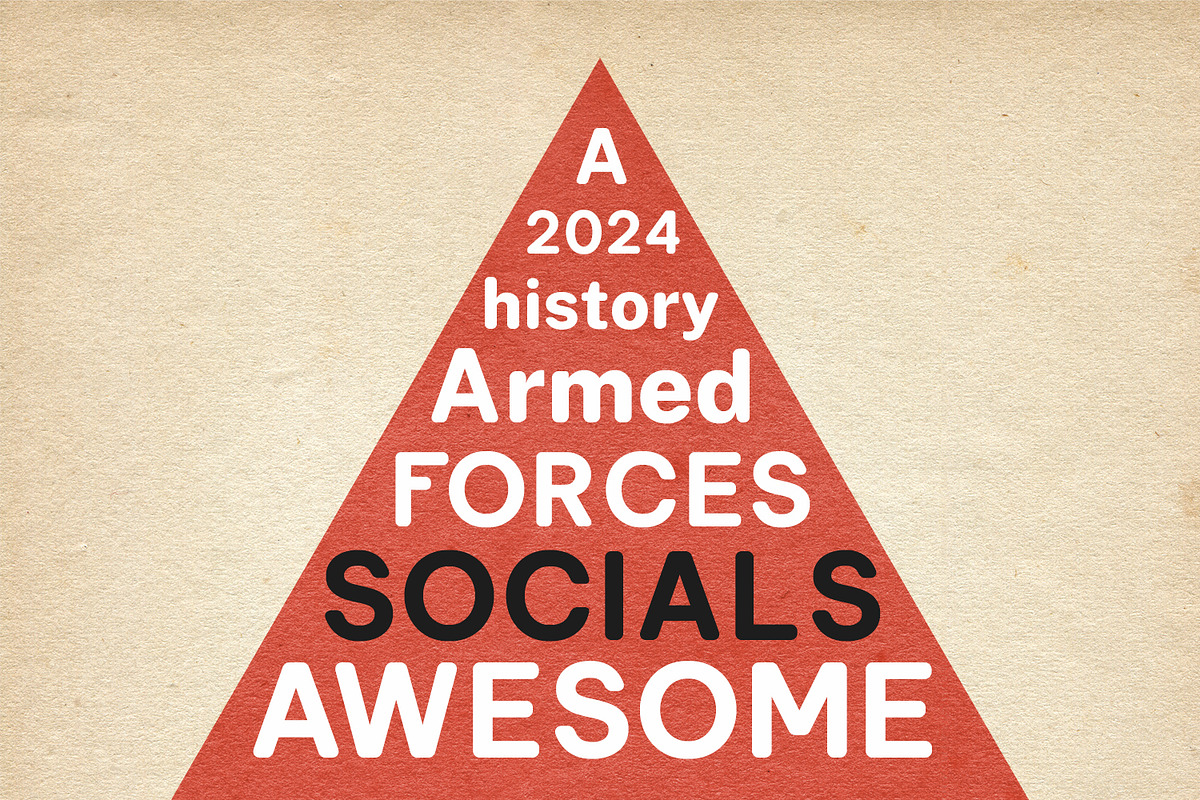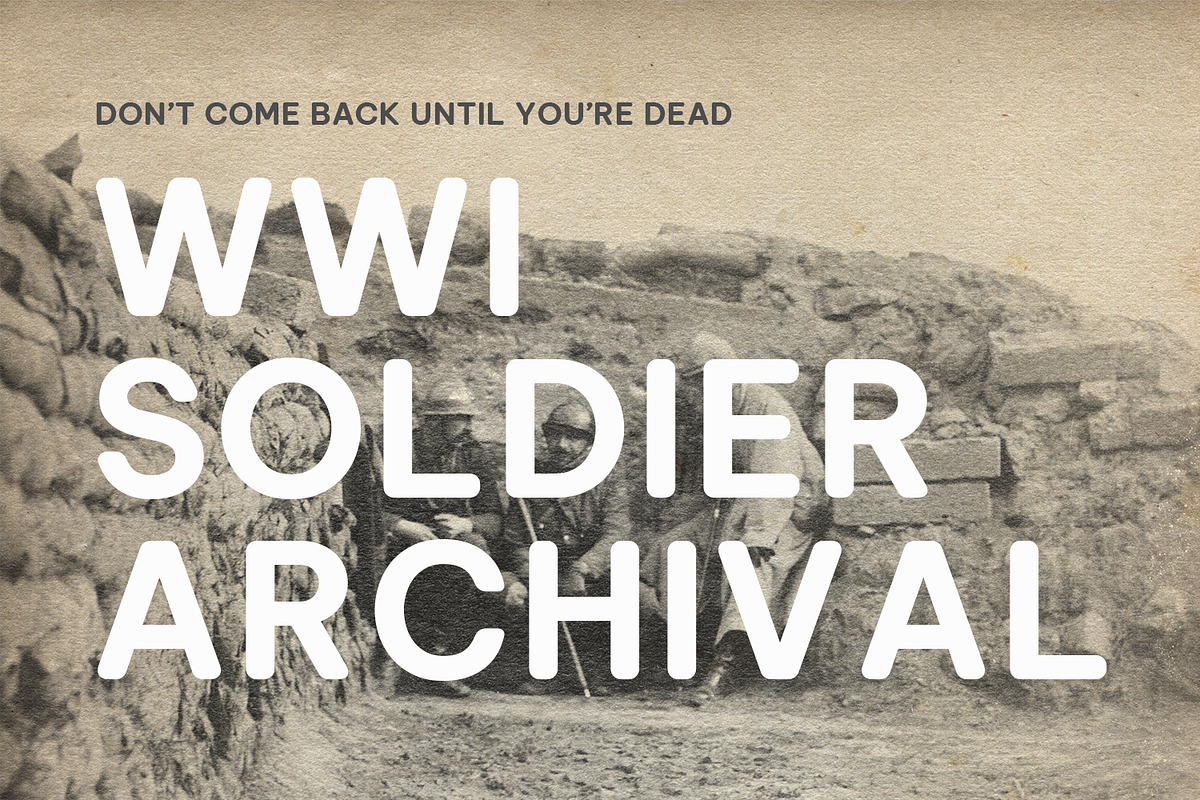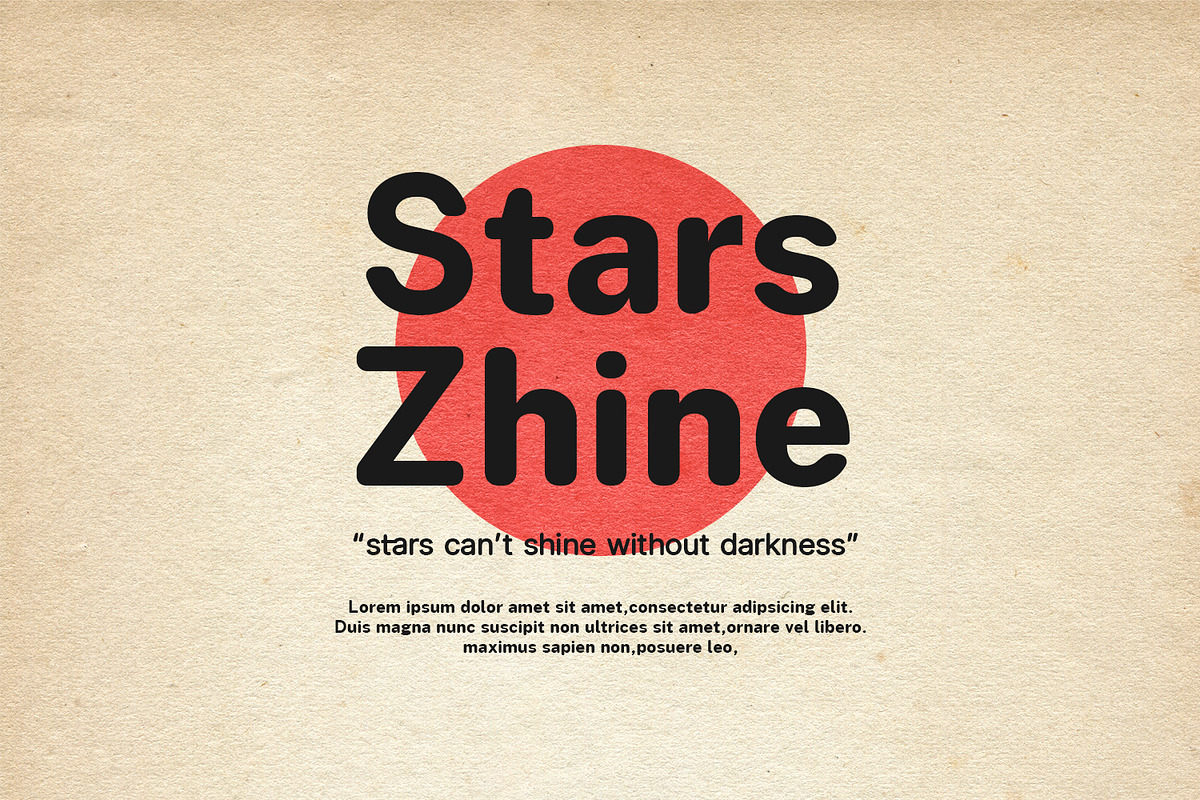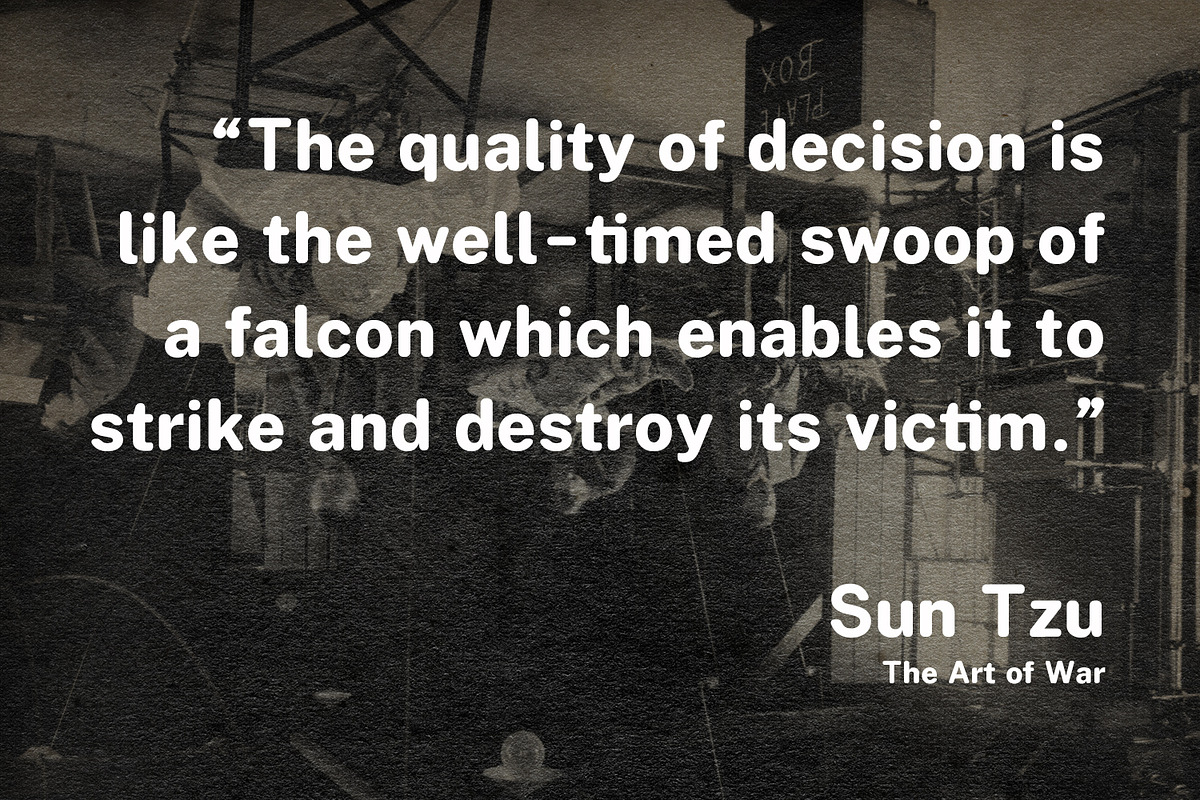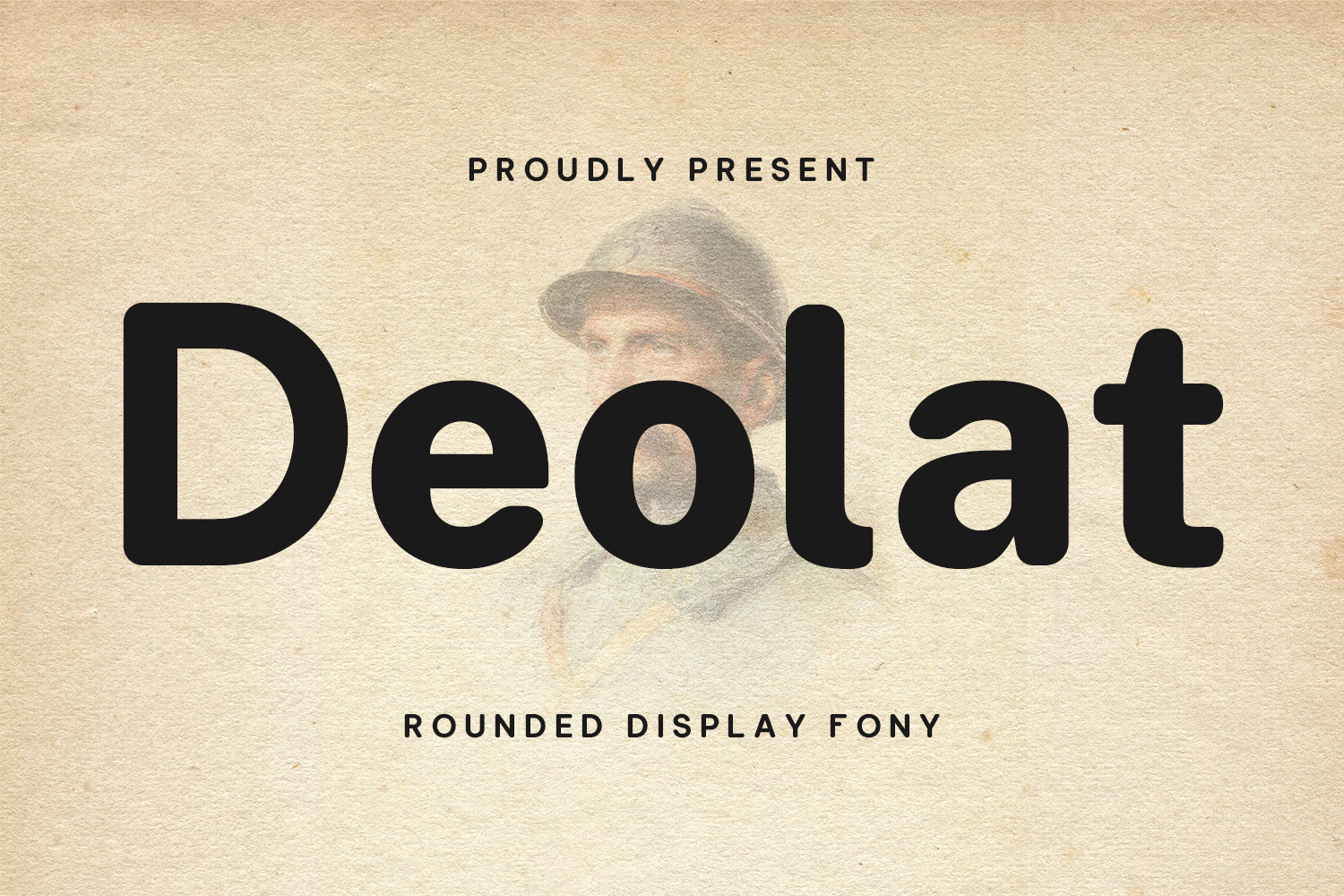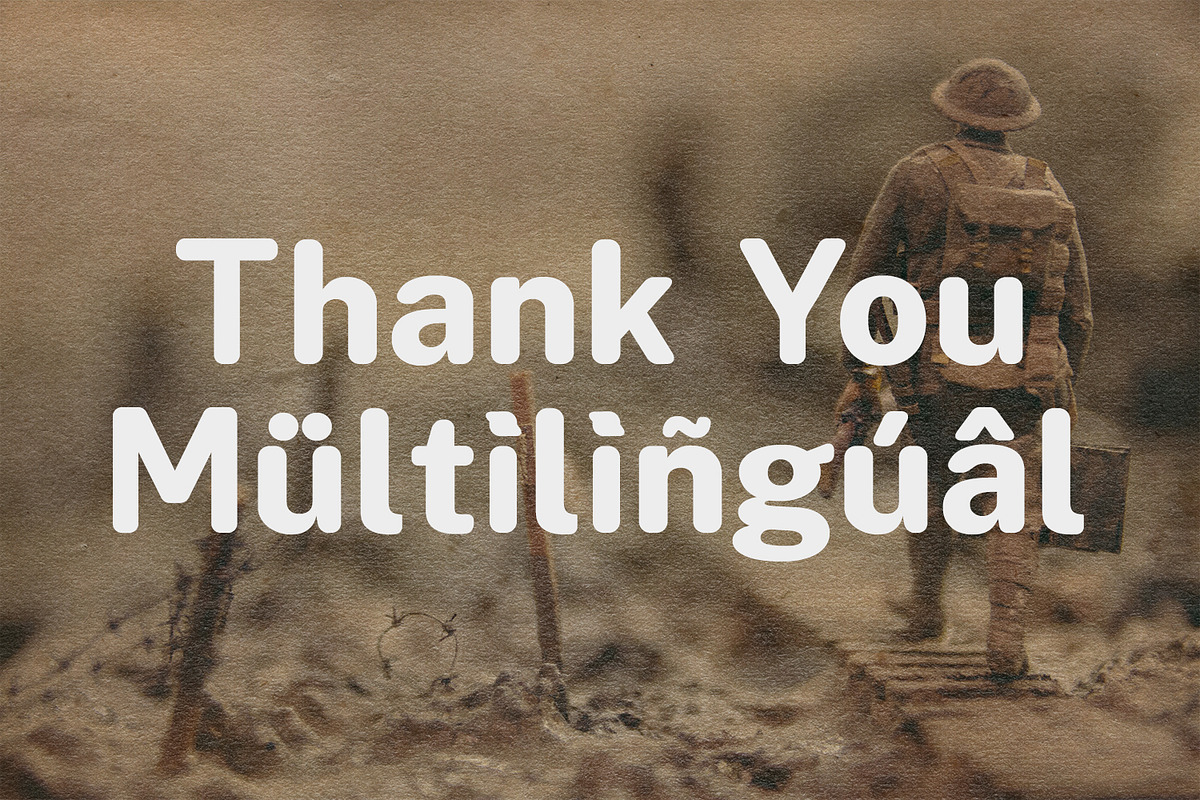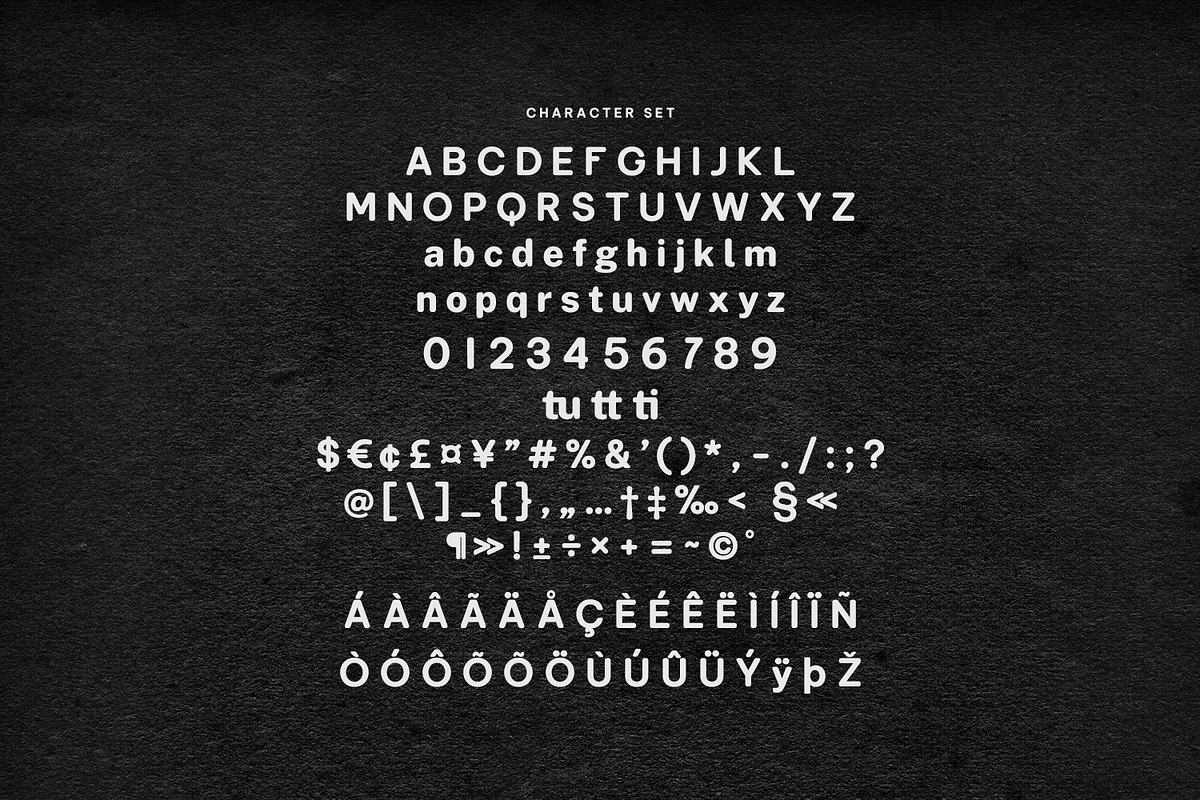
Deolat Rounded Display Font
Deolat is a rounded sans serif font. With bold stroke, fun character with a bit of ligatures. To give you an extra creative work. Hoglar font support multilingual language. This font is good for logo design, Social media, Movie Titles, Books Titles, a short text even a long text letter and good for your secondary text font with sans or serif. Make a stunning work with Deolat font.